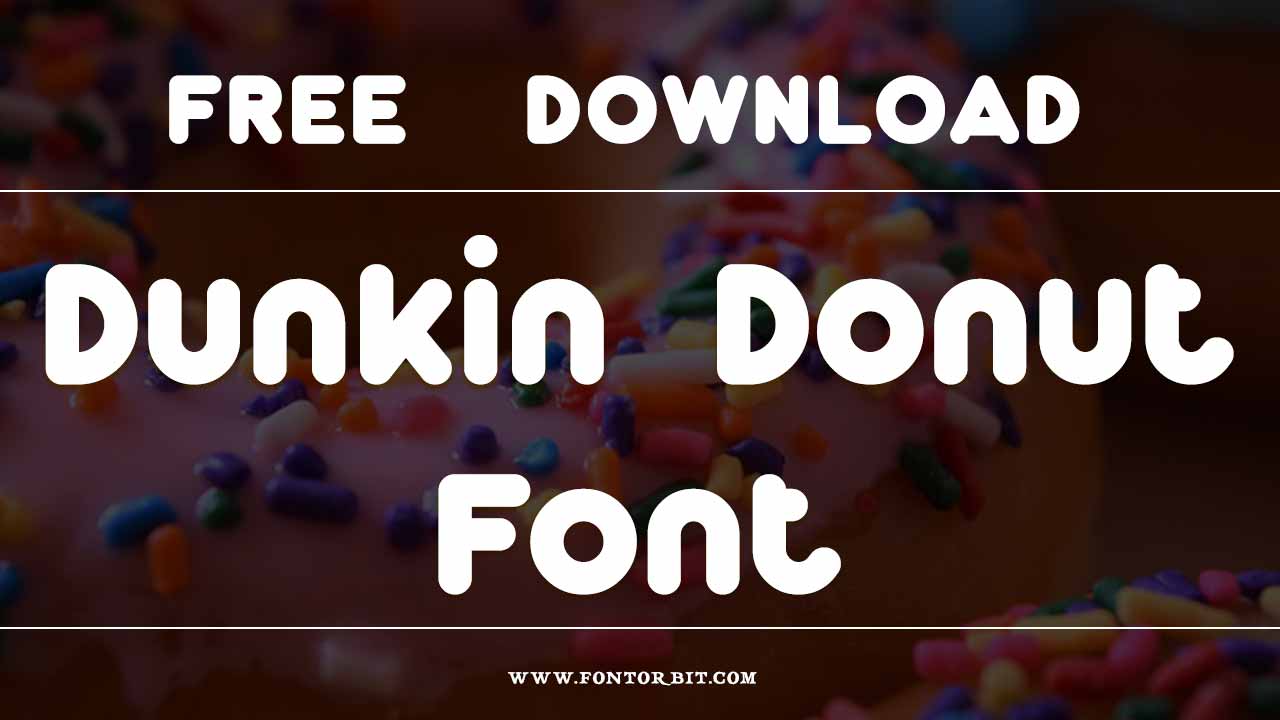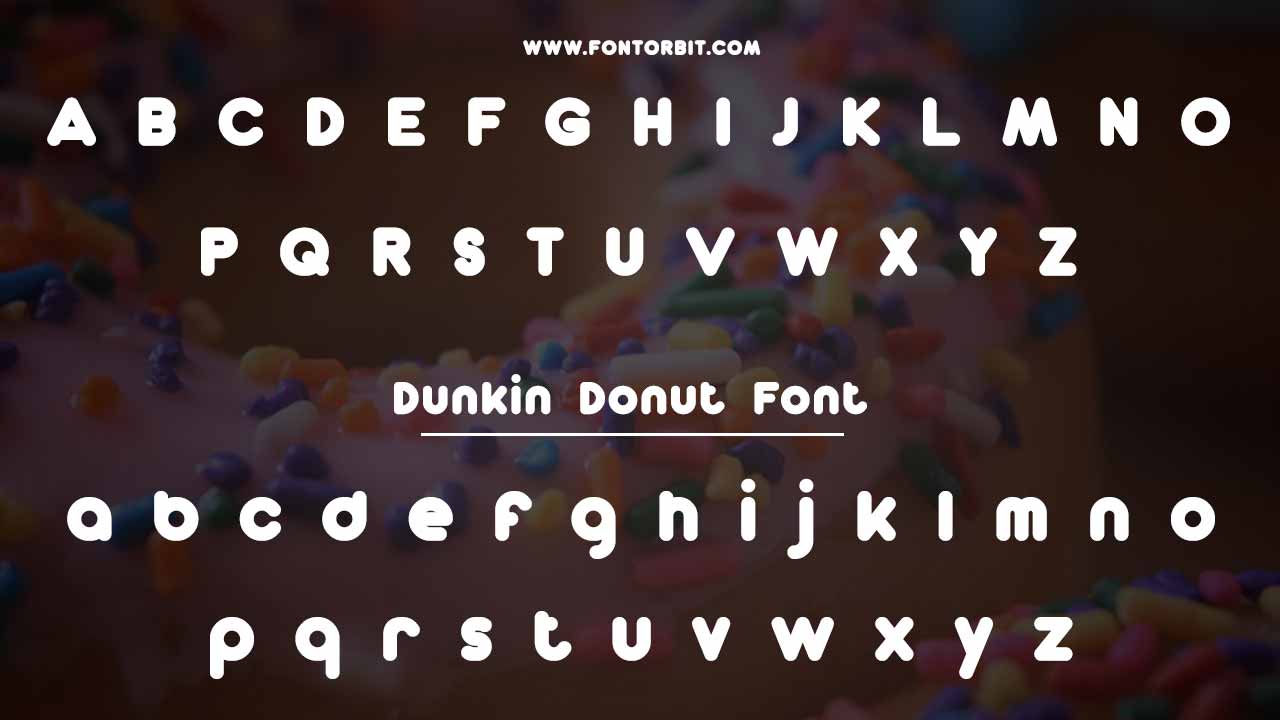
The Dunkin Donut Font is a bold smooth font that has gained popularity due to its association with the Dunkin Donuts brand. Designed by Pixel Sagas, this typeface is inspired by the Dunkin Donuts logo font used in the branding of the Dunkin Donuts restaurant franchise. The logo font reflects the company’s identity as a leading American multinational coffee company known for its delicious coffee, baked goods, and doughnuts. The font family includes various versions, making it versatile for store, banner, and website use.
Dunkin Donut Font Overview
- Font Name: Dunkin Donut Font
- Style: Bold, Smooth
- Designer: Pixel Sagas
- Category: Logo Font, Modern Font
- Total Glyphs: 183 glyphs / 241 characters
- Similar Font: Lobster, Cooper Black
- Usage: Store branding, banners, websites, and advertisements
- Supports: Accents, Symbols, and Punctuation Marks
Dunkin Donut Font Family Includes
- Dunkin Regular
- Dunkin Sans
- Dunkin Bold
- Dunkin Sans Bold
- Dunkin Italic
- Dunkin Sans Italic
- Dunkin Bold Italic
- Dunkin Sans Bold Italic
Where Dunkin Donut Font Is Used
- Dunkin Donuts logo and branding materials
- Food packaging for doughnuts, coffee, and baked goods
- Movie font and game fonts for playful themes
- Store signage and promotional banners
- Music font styles for album designs
Best Font Pairing
History Of Dunkin Donut Font
The Dunkin’ Donuts brand was originally known as Open Kettle, and it was founded in New York by William Rosenberg in the 1950s. Over time, the brand evolved into one of the most recognized names in the coffee industry. The Dunkin Donuts logo font was crucial in maintaining its visual identity.
Pixel Sagas, along with influences from designers like Nick Belshaw and Alan Meeks, created a logo font that became synonymous with the Dunkin Donuts restaurant franchise. Using bold, smooth fonts like Dunkin Sans ensures readability and strong brand association.
3.What Is The Best Alternative To This Font? If you’re looking for a font similar to the Dunkin Donuts logo font, you might try Lobster, Fredoka One, or Cooper Black. These fonts also feature bold, smooth curves that capture a fun and modern aesthetic, making them great alternatives for branding and design.
4.Does The Font Support Special Characters? Yes, the Dunkin Donut font supports a wide range of special characters, including punctuation marks, accents, and symbols. Whether you need to create text for a website, banner, or marketing material for your Dunkin Donuts brand, you can use all necessary characters in various languages.